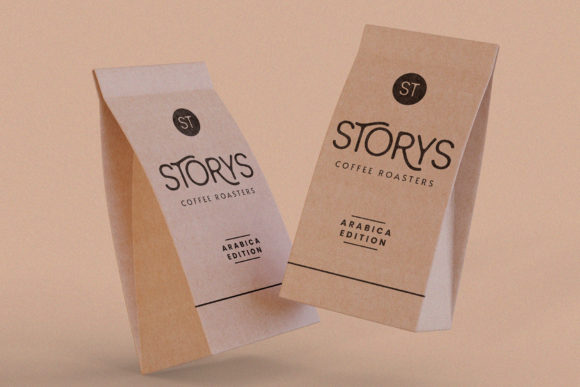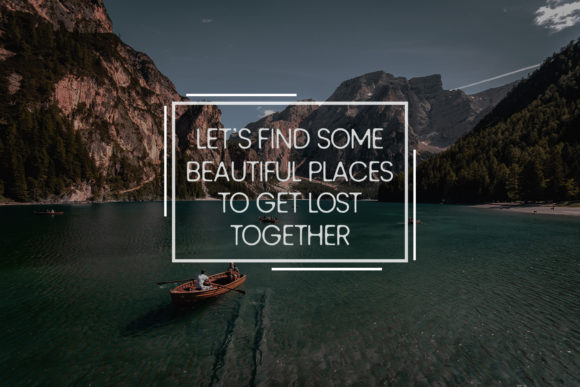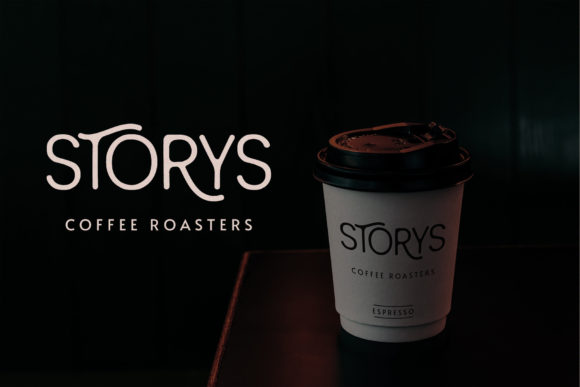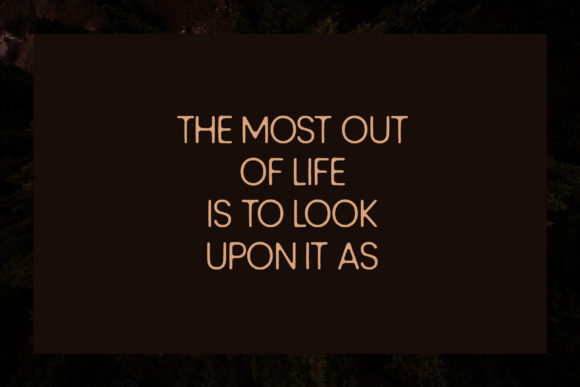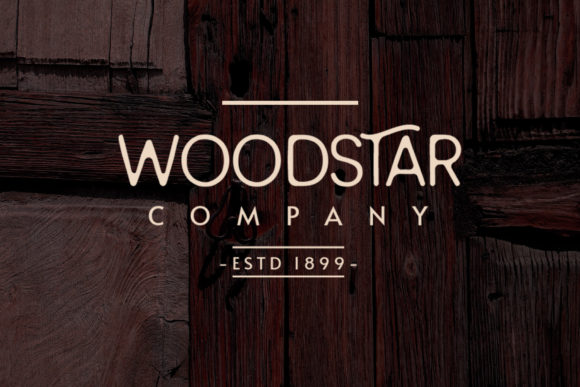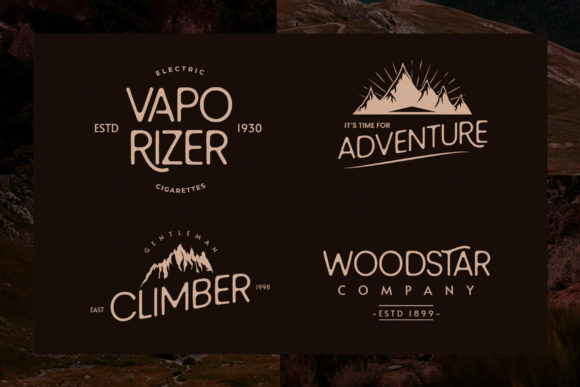
Discover the Charm of Garamount Font: A Simple, Vintage Sans Serif for Your Creative Projects
Are you on the hunt for a font that effortlessly blends simplicity, vintage charm, and versatility? Look no further than Garamount Font. This neat sans serif font is designed to elevate your creative projects, making them stand out with its unique character. In this article, we’ll dive into the world of Garamount, exploring its features, uses, and why it’s a must-have for designers and crafters alike.
What is Garamount Font?
Garamount is a simple, vintage-styled, and neat sans serif font that has captured the hearts of designers and crafters worldwide. Its clean lines, subtle curves, and classic look make it an excellent choice for a wide range of projects. Whether you’re working on a logo, branding materials, packaging, or digital content, Garamount is the perfect companion to bring your creative ideas to life.
Key Features of Garamount Font
- Simplicity: Garamount’s design is characterized by its simplicity, making it easy to read and understand. Its clean lines and minimal ornamentation ensure that your message is conveyed clearly and effectively.
- Vintage Charm: Despite its simplicity, Garamount exudes a vintage charm that adds a touch of nostalgia and sophistication to your projects. This unique blend of old and new makes it an excellent choice for designers looking to create something distinctive.
- Versatility: One of the standout features of Garamount is its versatility. It can be used in an incredibly large set of projects, from logos and branding materials to packaging, posters, and digital content. Its adaptability makes it an excellent addition to any designer’s toolkit.
- Neat and Legible: Garamount’s neat and legible design ensures that your text is easy to read, even at small sizes. This makes it perfect for body text, captions, and other applications where readability is crucial.
Why Choose Garamount Font?
So, why should you choose Garamount for your next project? Here are just a few compelling reasons:
- Elegance: Garamount adds a touch of elegance to your projects, making them look professional and polished.
- Uniqueness: With its vintage charm and simple design, Garamount helps your projects stand out in a crowded design landscape.
- Easy to Use: Garamount is incredibly easy to use, even for designers who are new to font pairing and design.
- Highly Versatile: As mentioned earlier, Garamount can be used in a wide range of projects, making it an excellent investment for designers and crafters.
How to Use Garamount Font in Your Projects
Using Garamount in your projects is straightforward. Here are a few tips to get you started:
- Pair it with Other Fonts: Experiment with pairing Garamount with other fonts to create a unique visual identity for your project.
- Use it for Headings and Body Text: Garamount’s legibility makes it perfect for both headings and body text.
- Customize it: Don’t be afraid to experiment with different colors, sizes, and styles to make Garamount your own.
In conclusion, Garamount Font is a simple, vintage-styled, and neat sans serif font that is sure to elevate your creative projects. Its unique blend of simplicity, vintage charm, and versatility makes it an excellent choice for designers and crafters worldwide. Whether you’re working on a logo, branding materials, packaging, or digital content, Garamount is the perfect companion to bring your creative ideas to life. So why wait? Add Garamount to your toolkit today and discover the difference it can make in your design work.